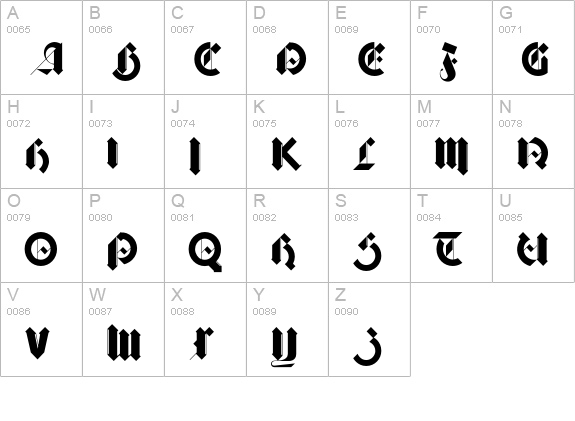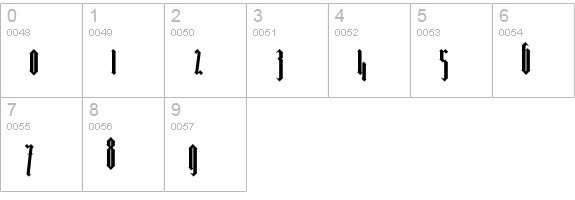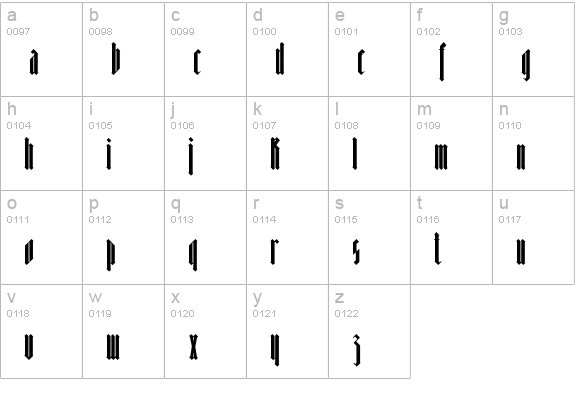
BarnbrookGothicThree Font Details
BarnbrookGothicThree font is a stylish and modern typeface that exudes sophistication and elegance. With its bold and distinctive letterforms, this font is perfect for making a strong statement in your designs. The clean lines and sharp angles of BarnbrookGothicThree font give it a sleek and contemporary look that will add a touch of class to any project. And the best part? BarnbrookGothicThree font is completely free to download at FontsMarket.com. This means you can access this high-quality font without any cost, making it a fantastic choice for designers looking to elevate their work without breaking the bank. Don't miss out on the opportunity to enhance your designs with the striking BarnbrookGothicThree font - download it today and take your projects to the next level!